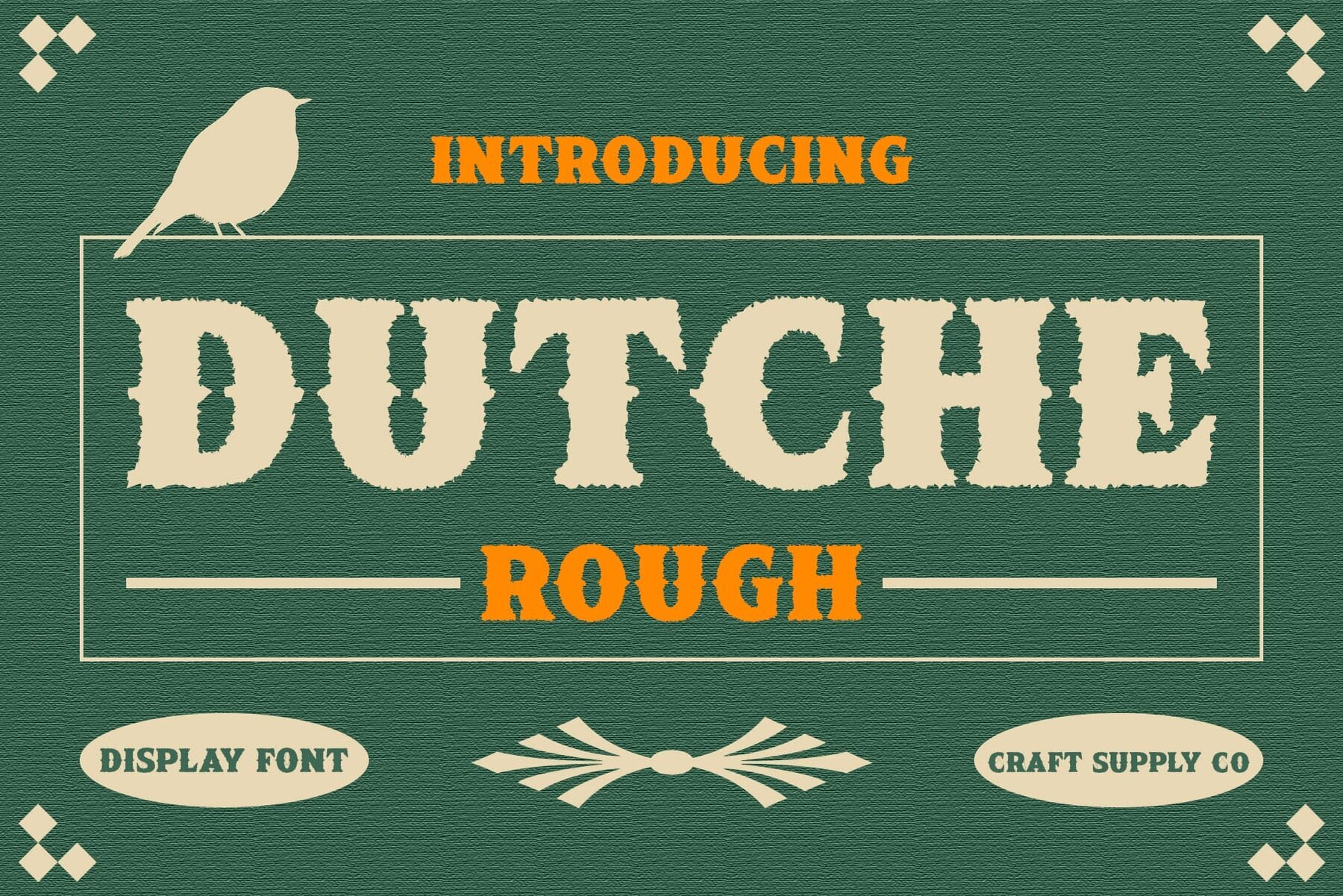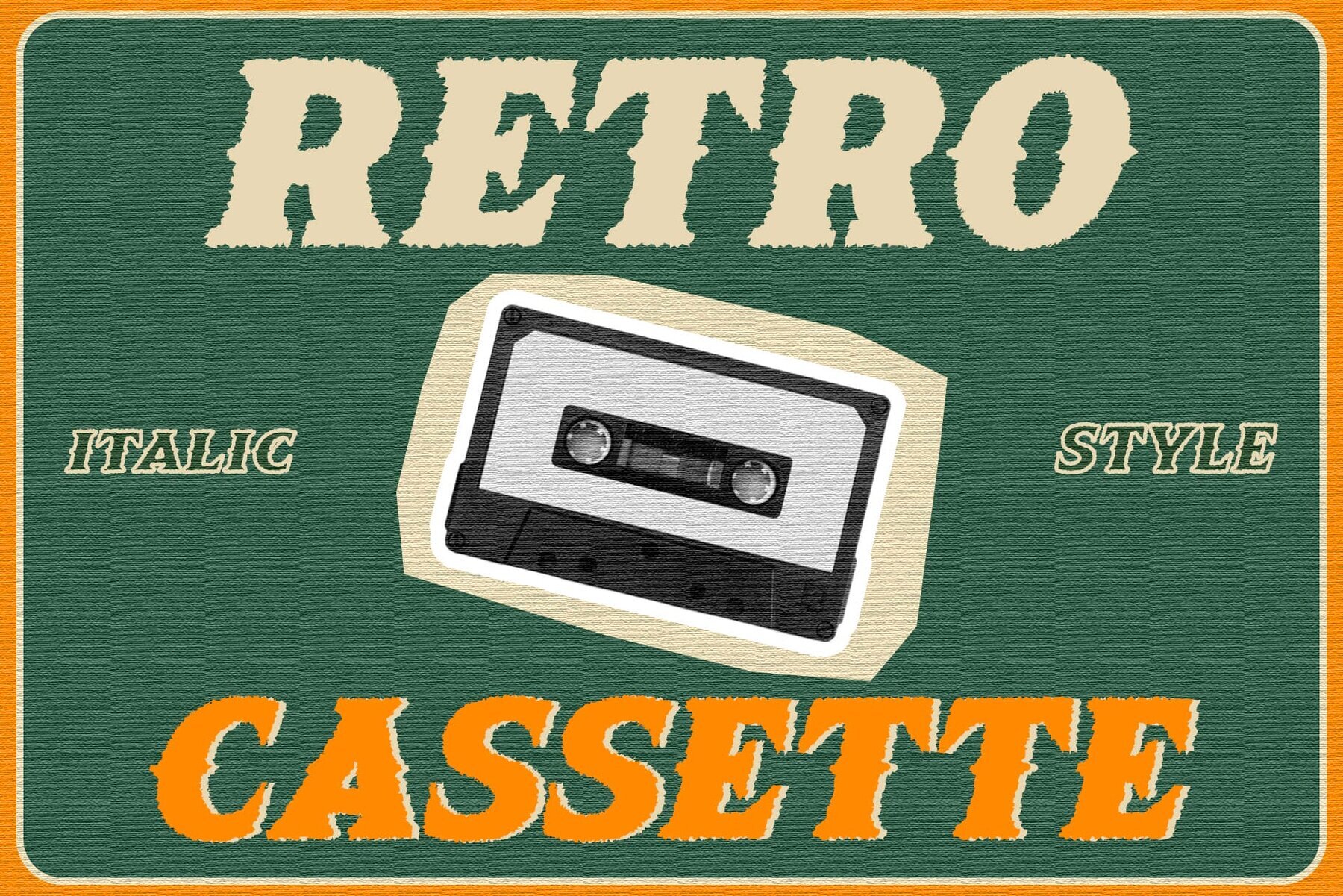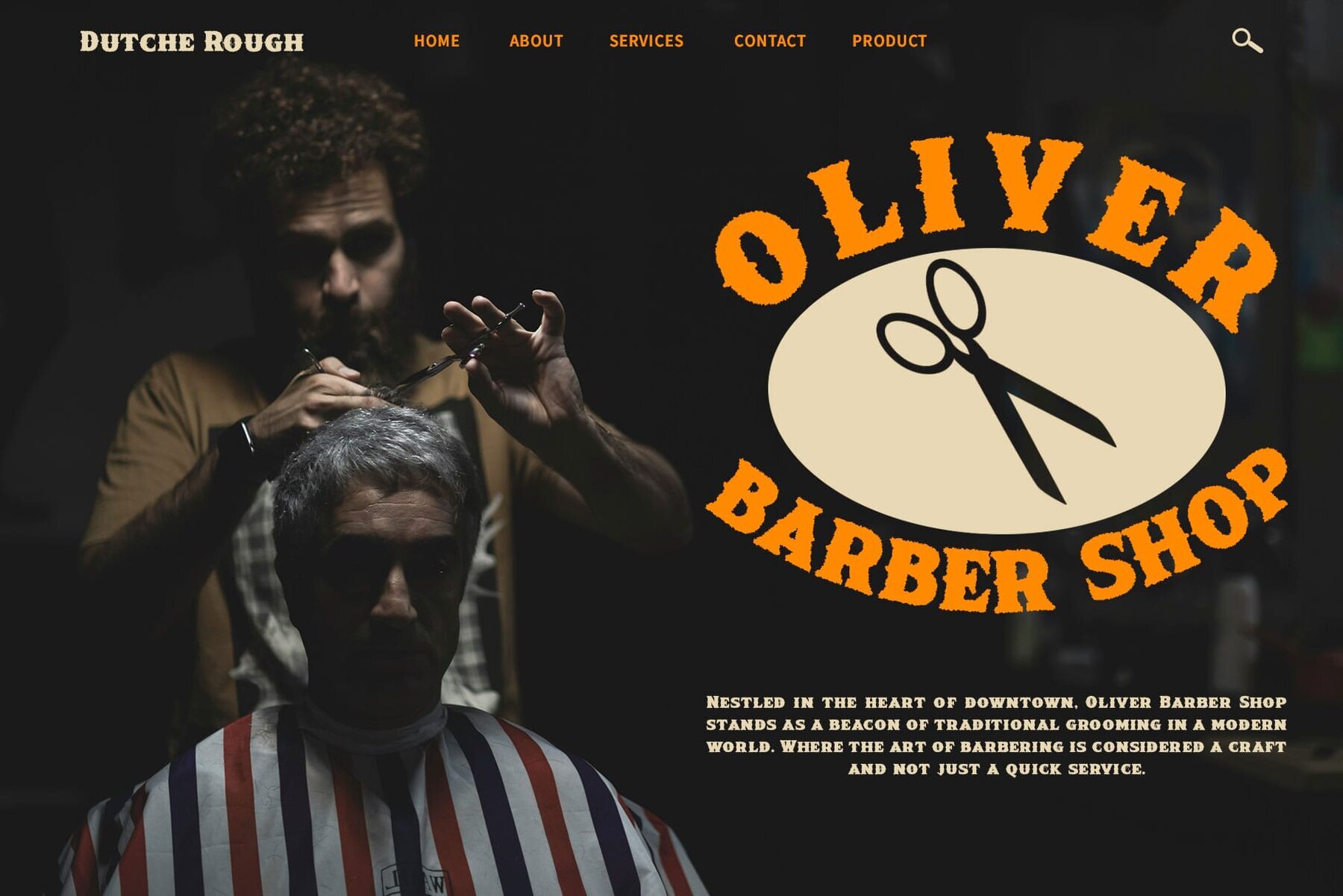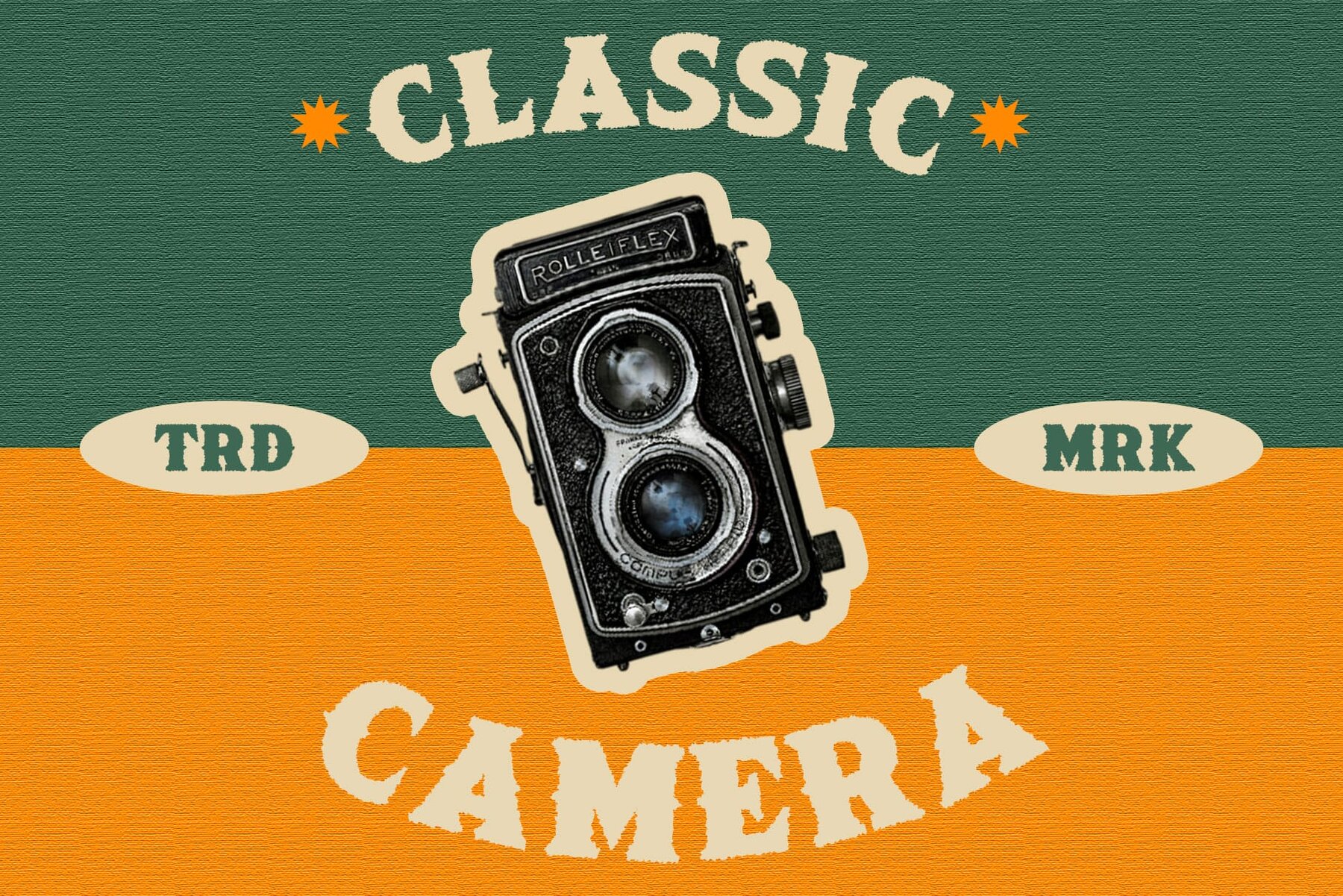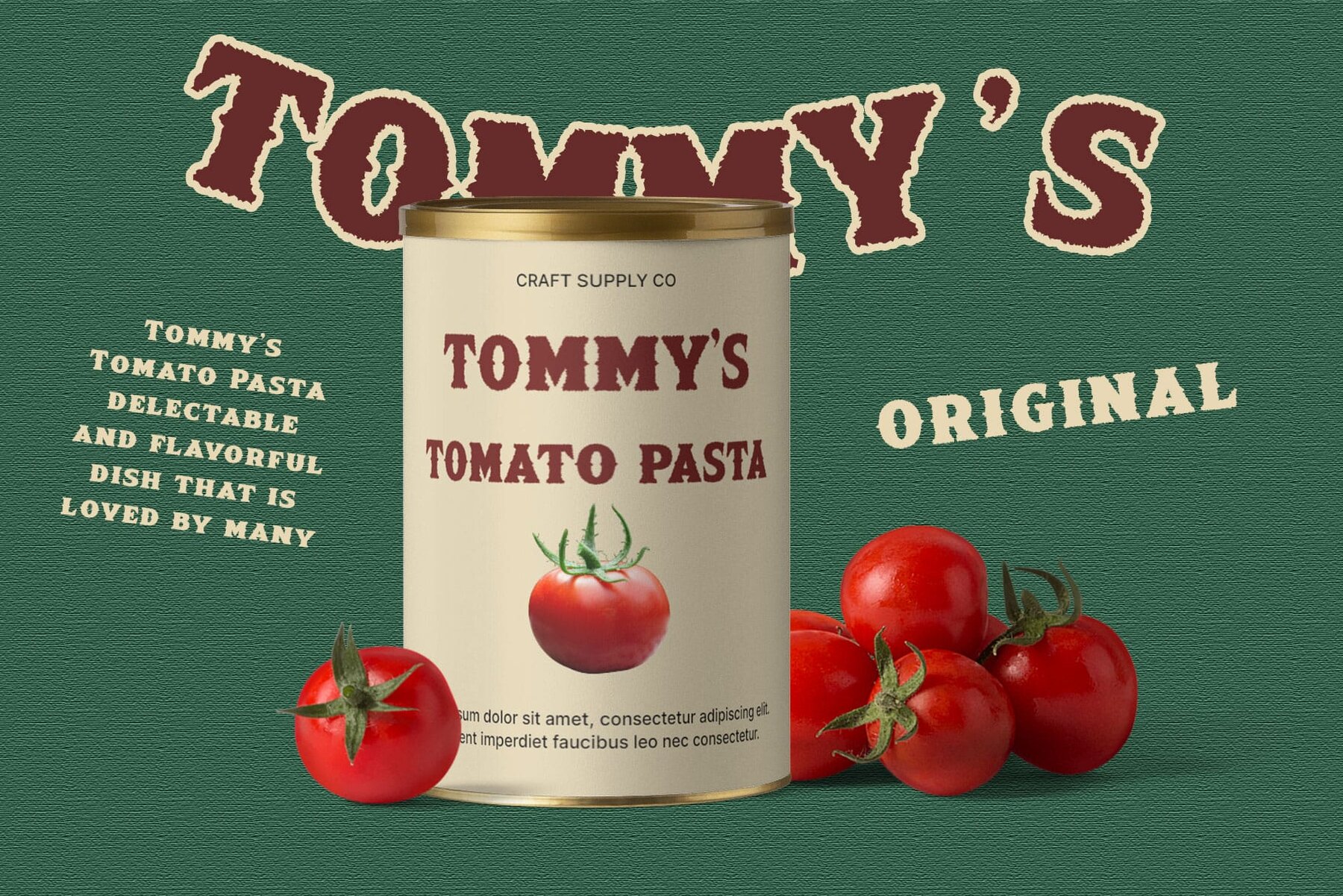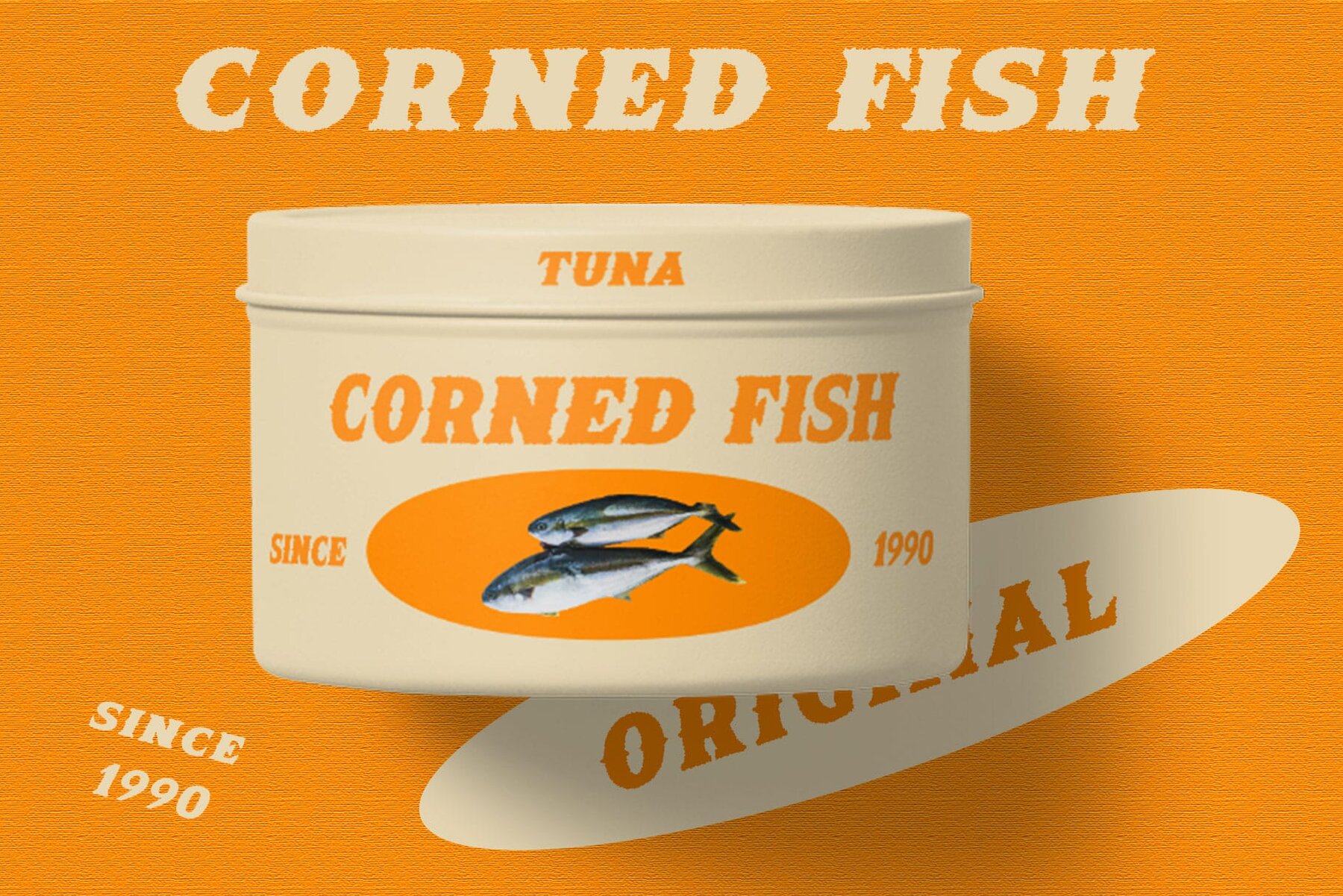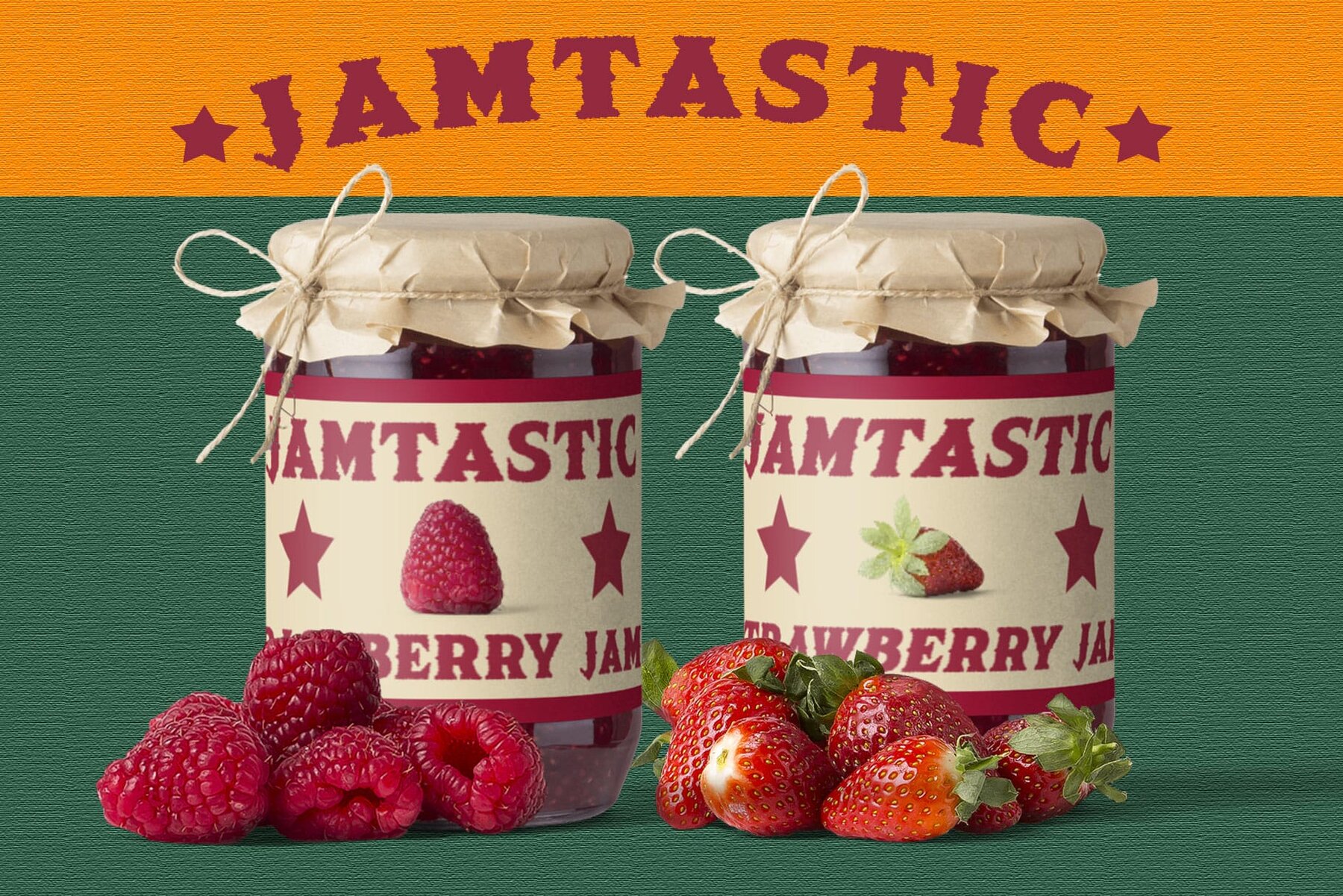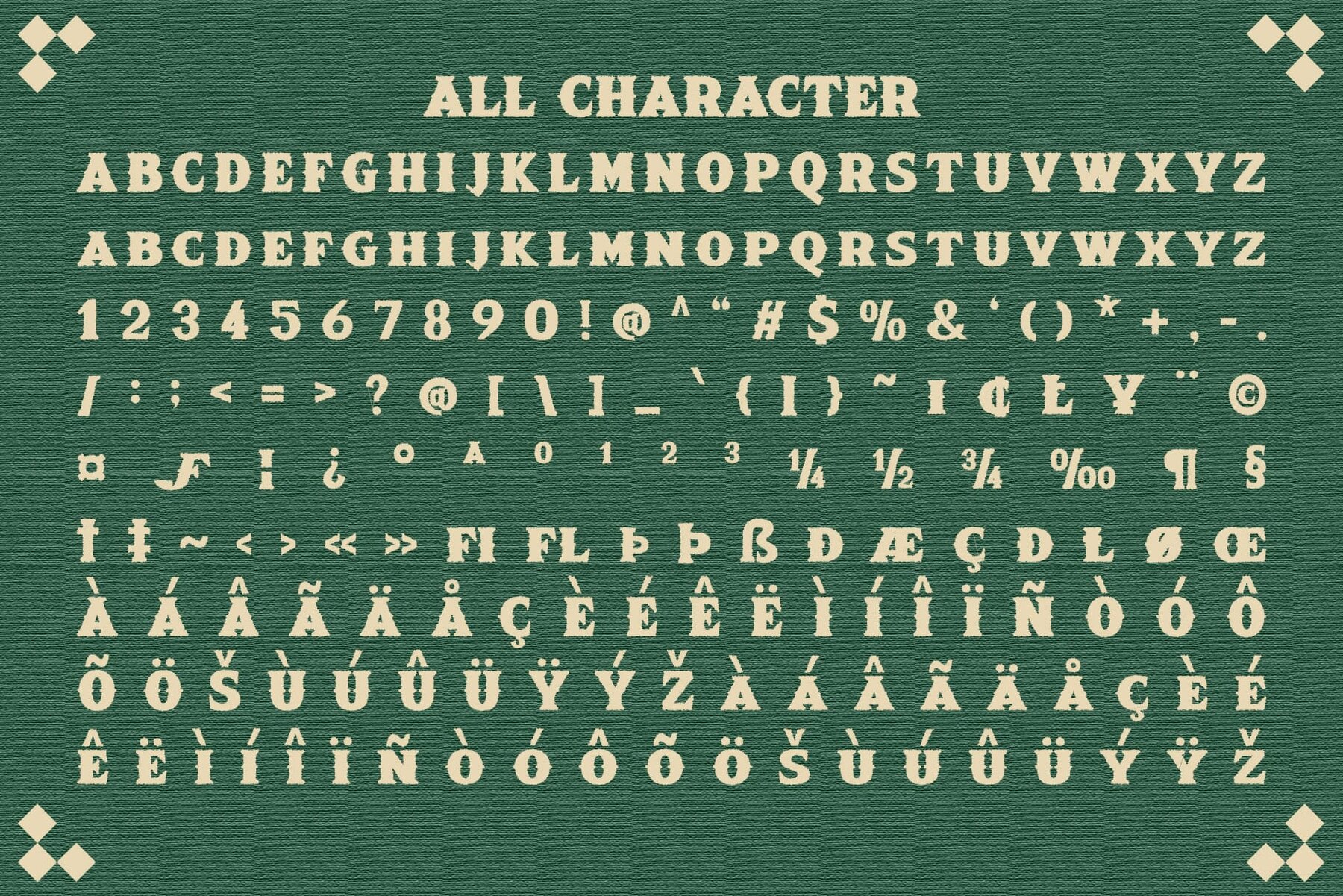
Dutche Rough Font
Dutche Rough is a serif display font that combines vintage charm with contemporary sophistication. Featuring sharp, pointed serifs, it brings an elegant touch to your designs, making it perfect for headlines, titles, and other prominent display elements. With a moderate weight, Dutche Rough strikes an ideal balance between boldness and readability, ensuring it stands out without overwhelming the overall composition.
Enhanced with a rough vintage effect, this font injects texture and character into each letterform, evoking the nostalgic feel of classic signage and posters. Dutche Rough includes both regular and italic versions, and supports uppercase and lowercase characters, numerals, punctuation, and multilingual accents via OpenType Standard encoding and PUA encoding. Whether you're working on branding, editorial design, or any other creative project, this font adds a touch of timeless elegance with a vintage twist.